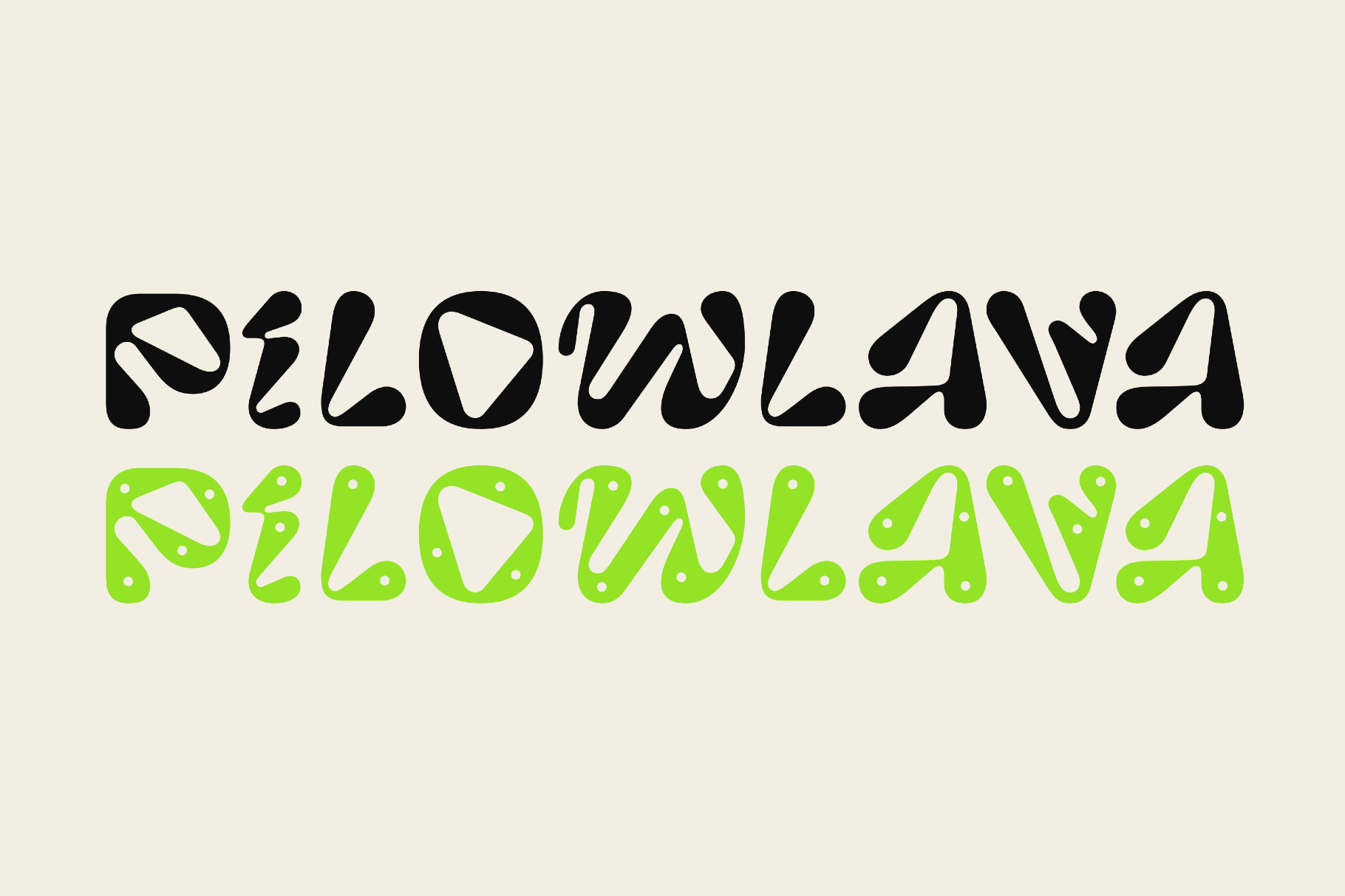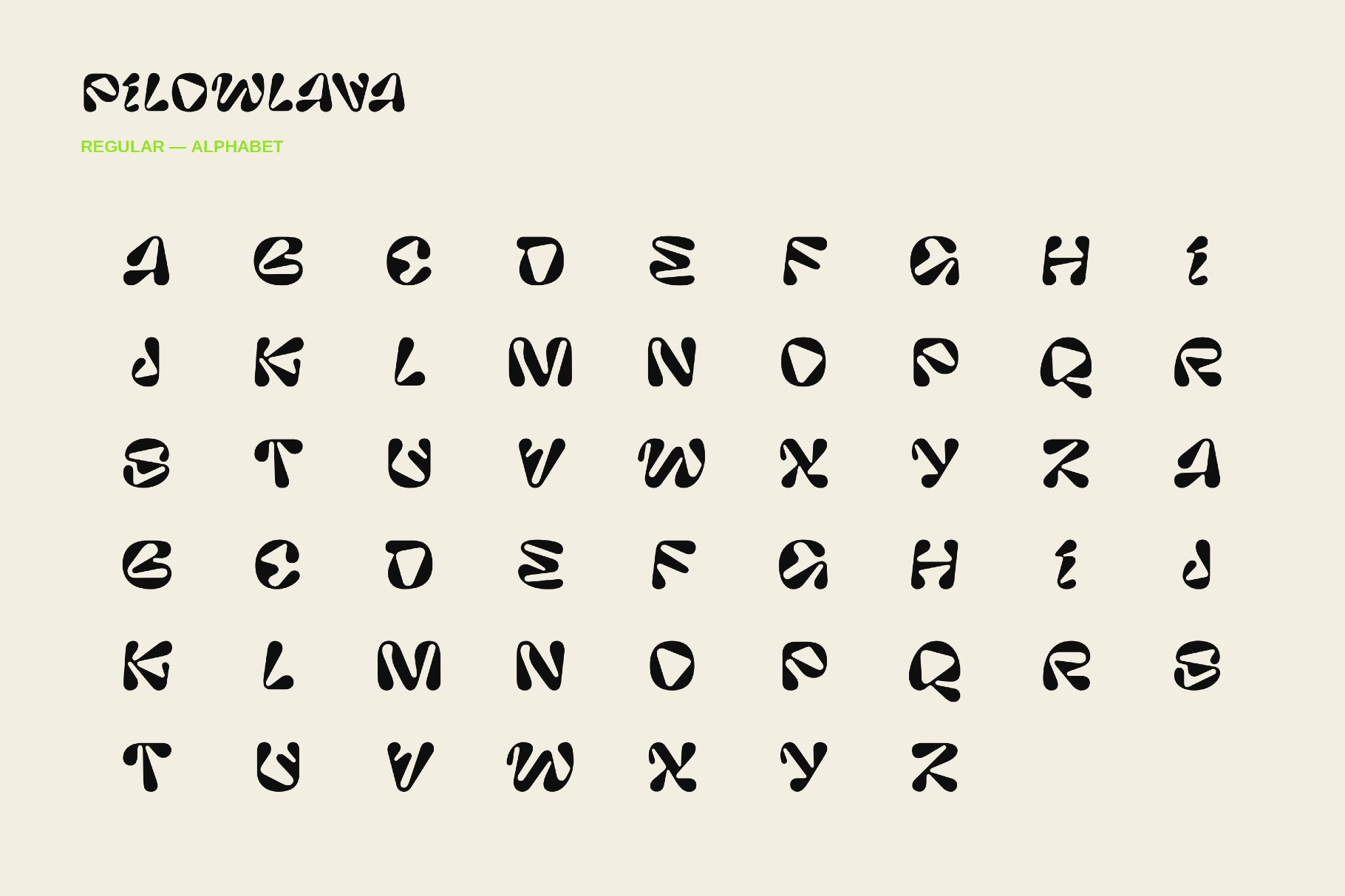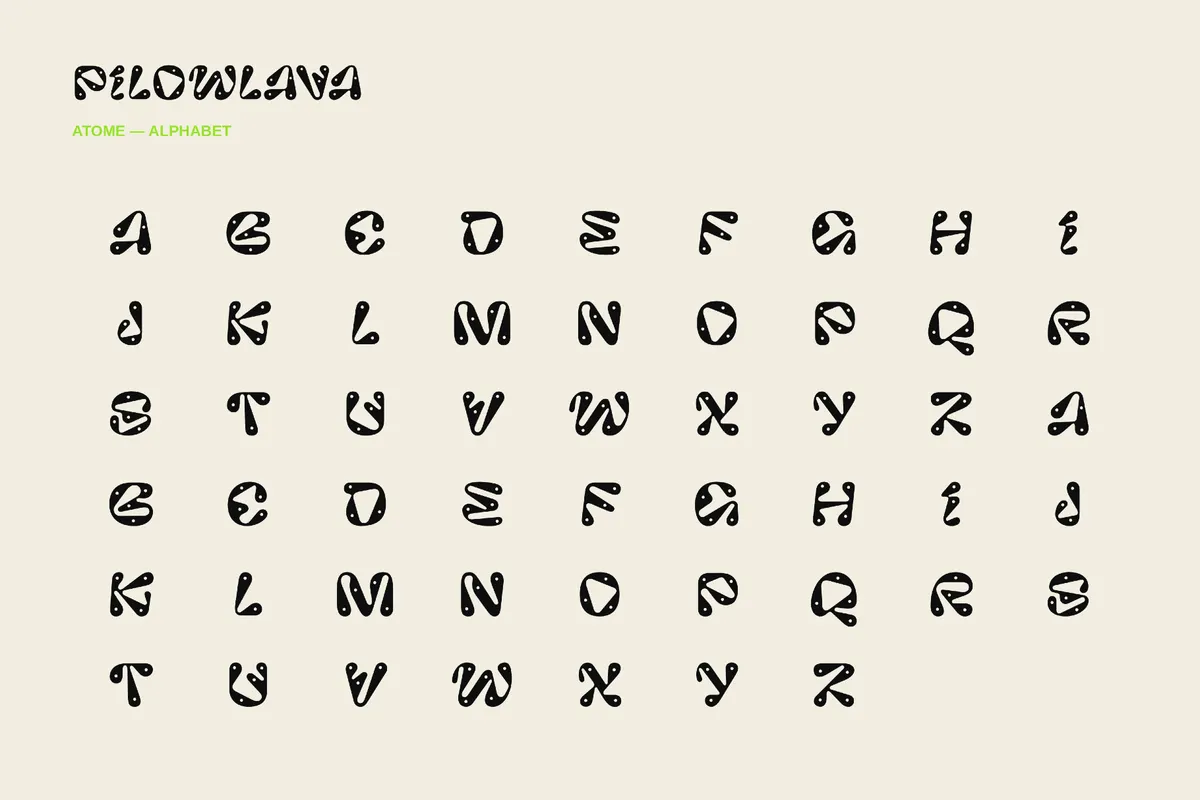
Pilowlava Font Family
Pilowlava swells with soft psychedelic curves, inflated proportions, and a relaxed 1970s display rhythm. Its plush, liquid shapes recall lava-lamp graphics, record-shop posters, and vintage toy packaging. The family works especially well for music branding, album covers, festival posters, fashion lookbooks, children’s titles, packaging, sticker designs, merch prints, and social media visuals.
• two styles: Regular and Atome;
• uppercase letters;
• numbers, punctuation, and symbols;
• multilingual support across extended Latin and Cyrillic scripts.